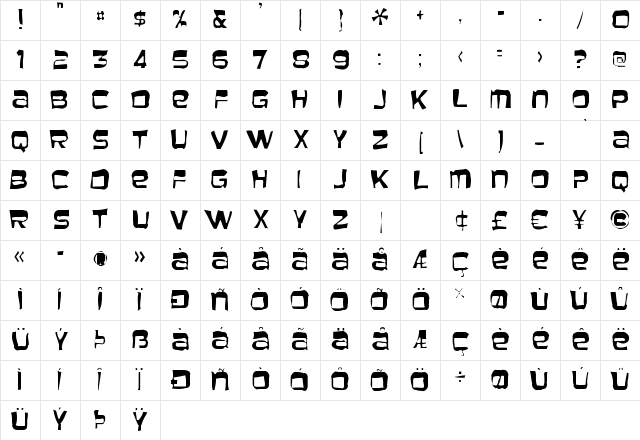
Baveuse Gaunt Regular Free Font
Baveuse Gaunt Regular
Design Context for Baveuse Gaunt
Baveuse Gaunt is a composed and adaptable typeface that performs quietly and consistently across a wide range of design contexts.